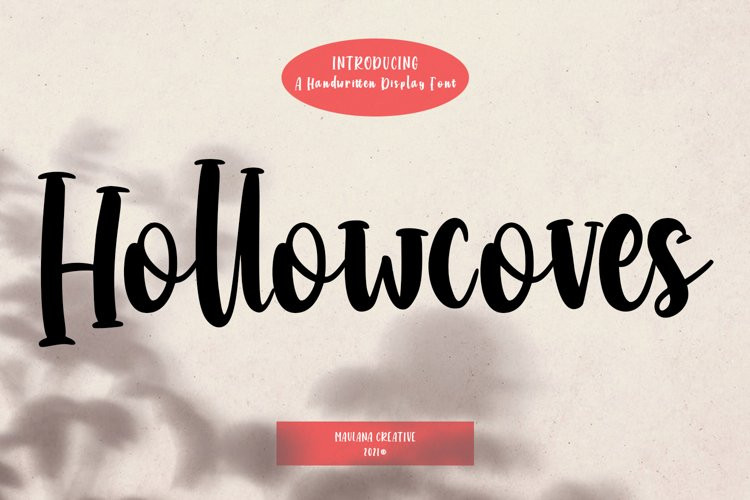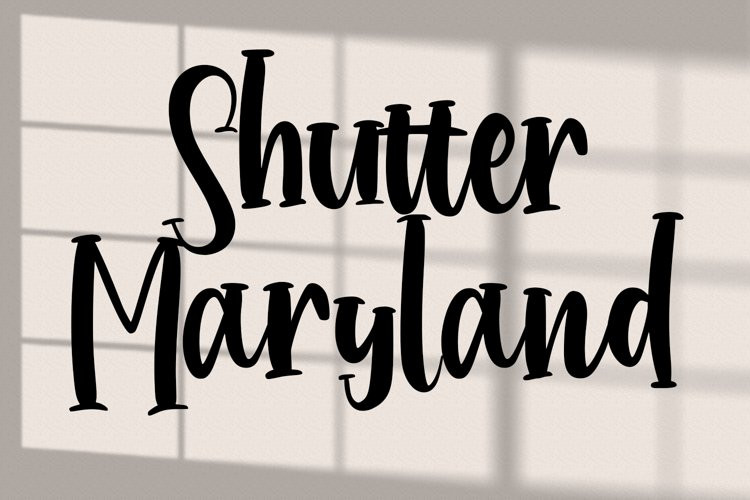
Hollowcoves Font
Hollowcoves FontHollowcoves is a Handwritten Display font. With contrast regular stroke, fun character with a bit of ligatures. To give you an extra creative work. Hollowcoves font support multilingual more than 100+ language. This font is good for logo design, Social media, Movie Titles, Books Titles, a short text even a long text letter and good for your secondary text font with sans or serif. Make a stunning work with Hollowcoves font.